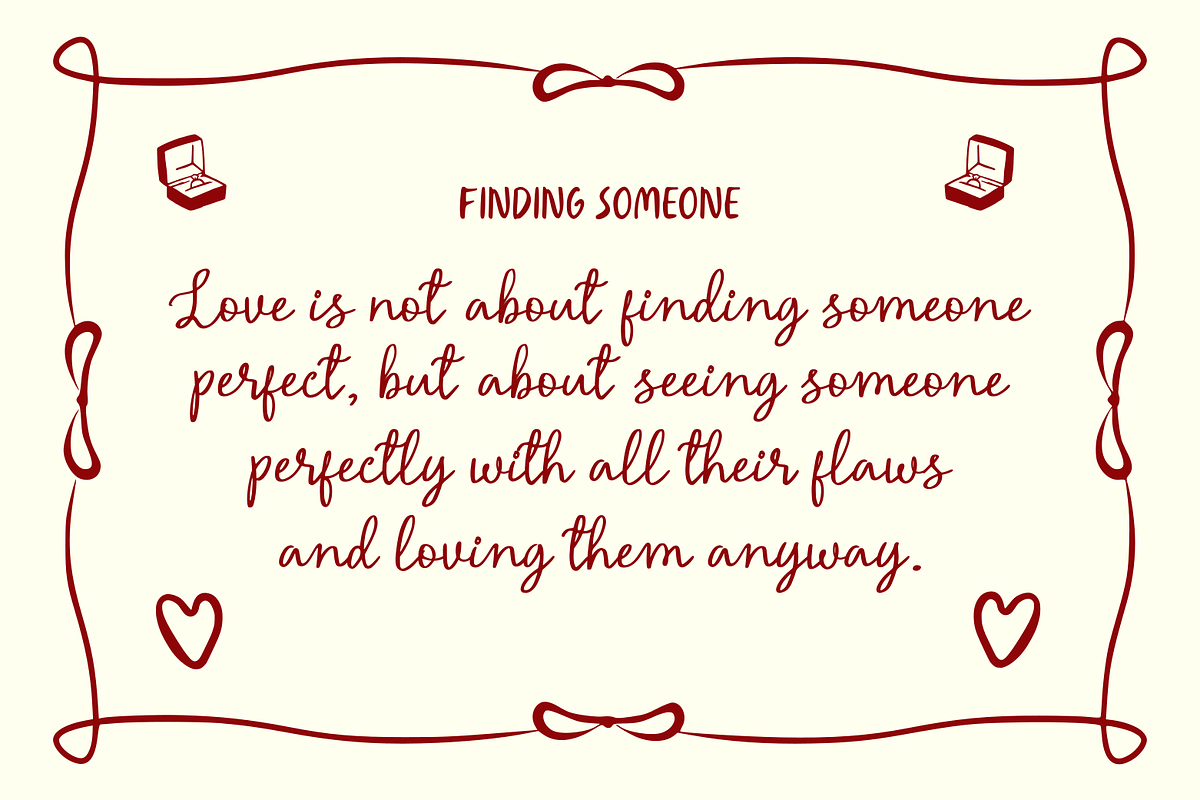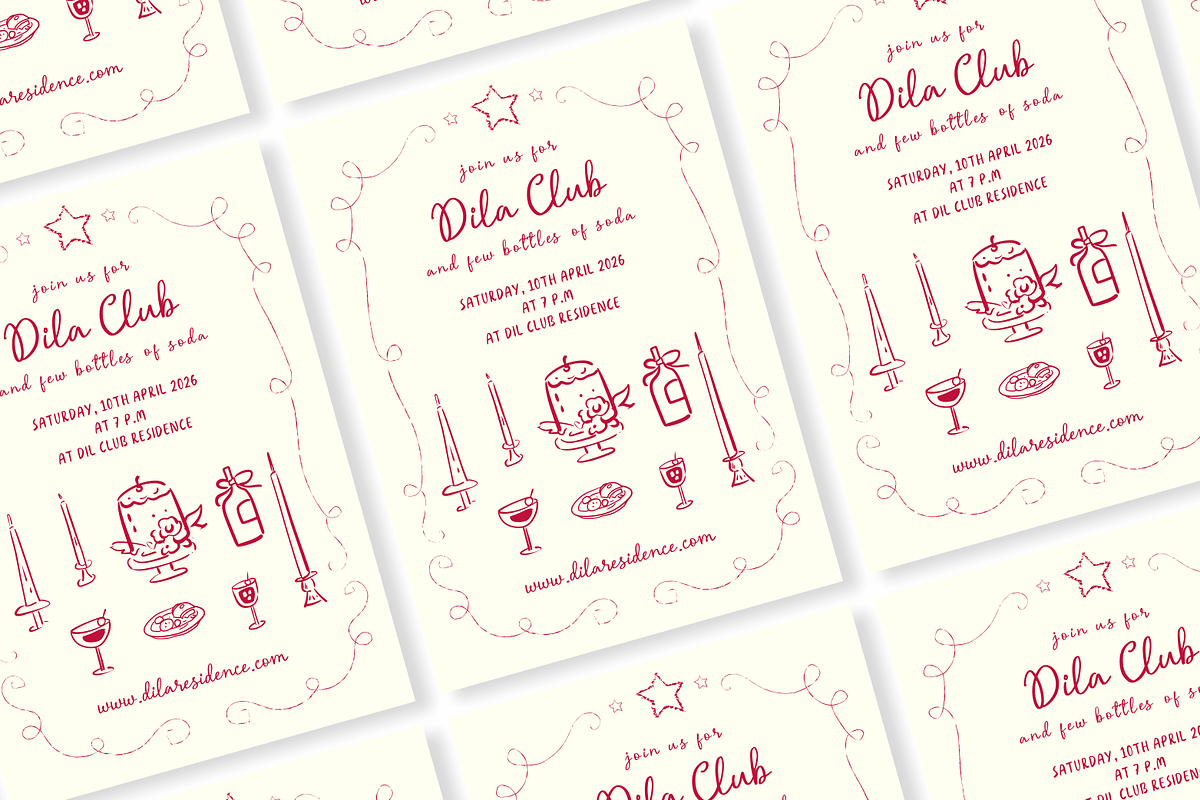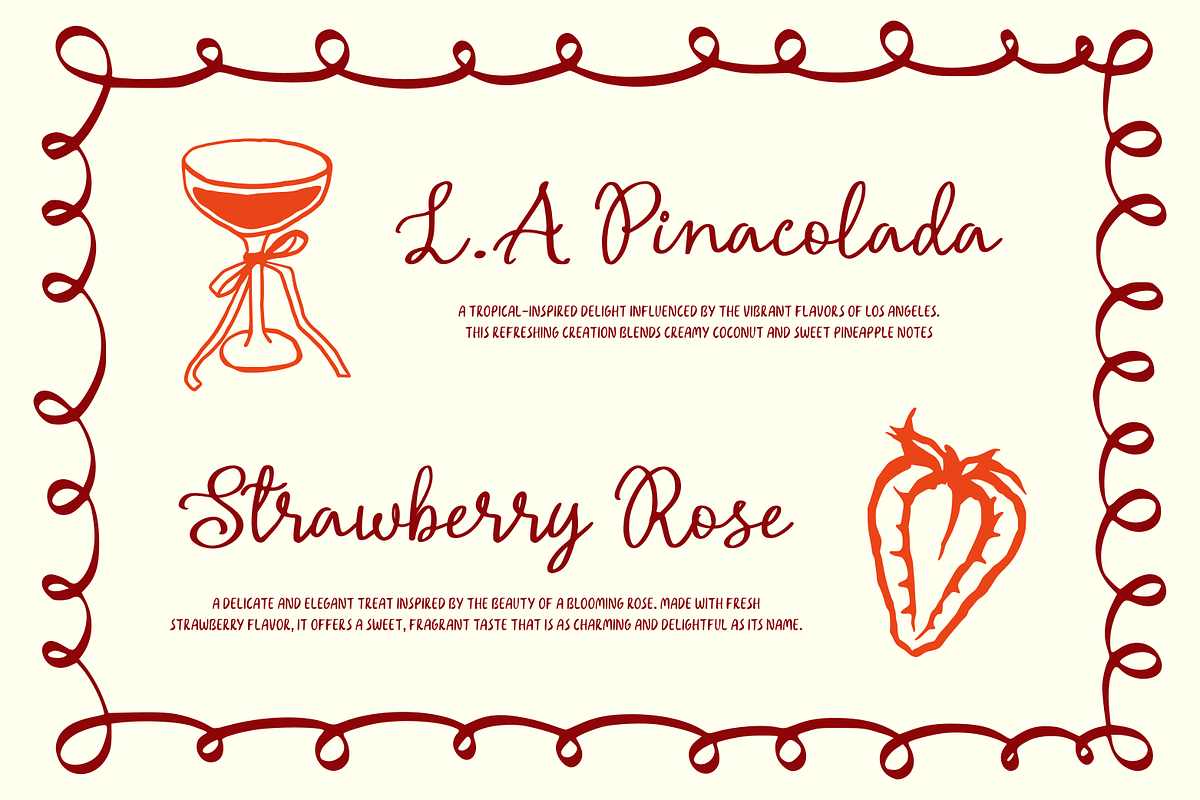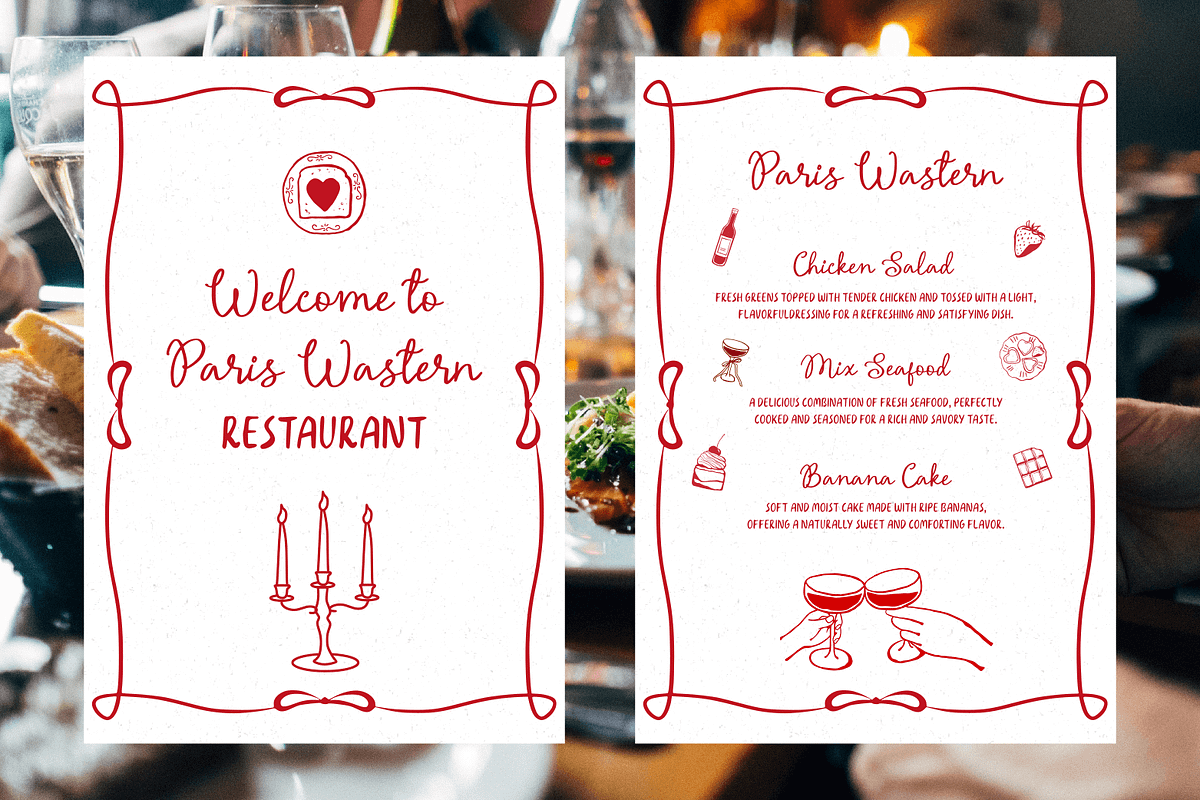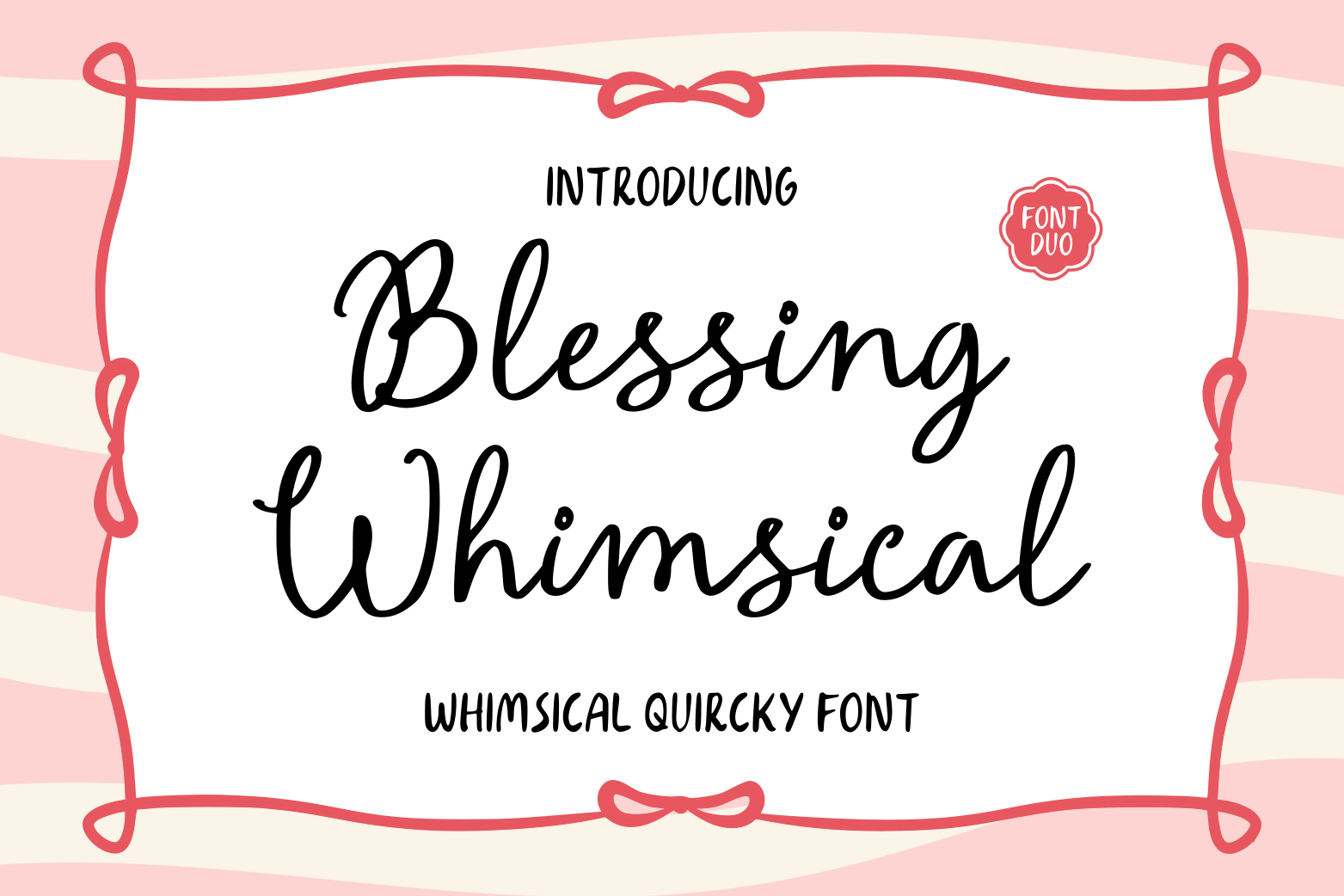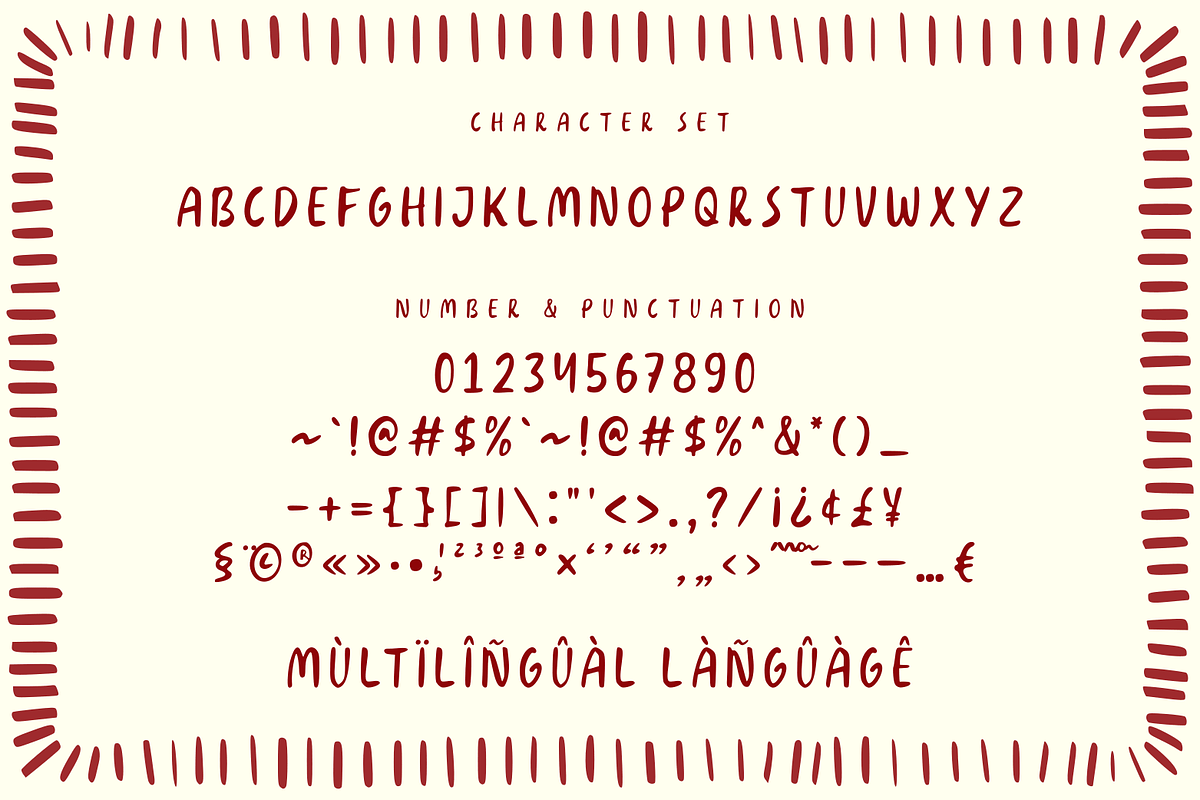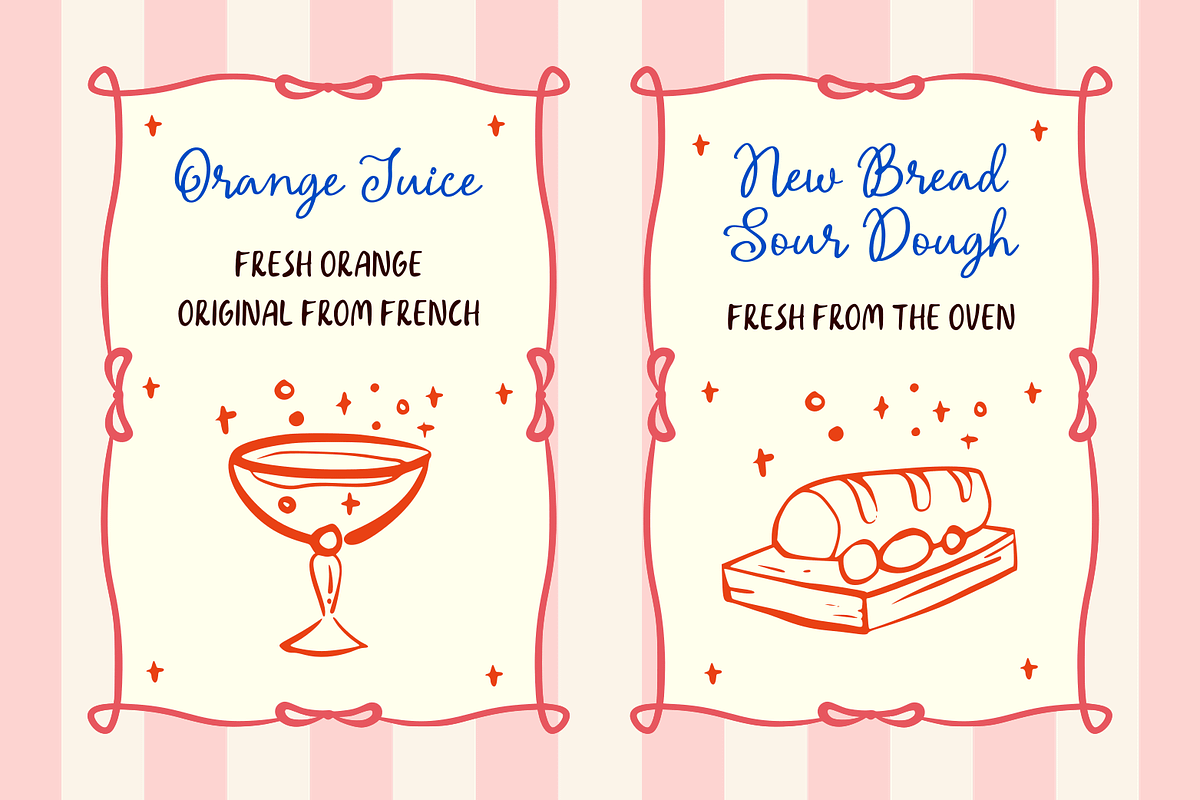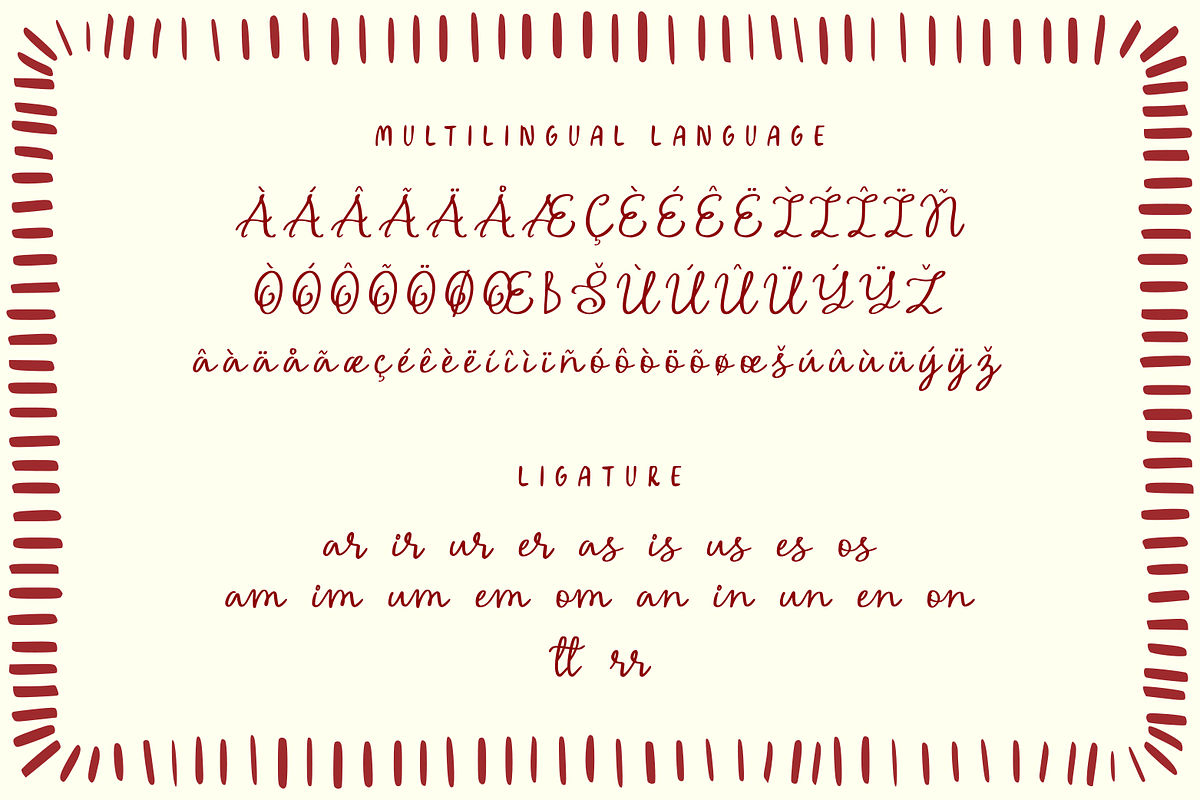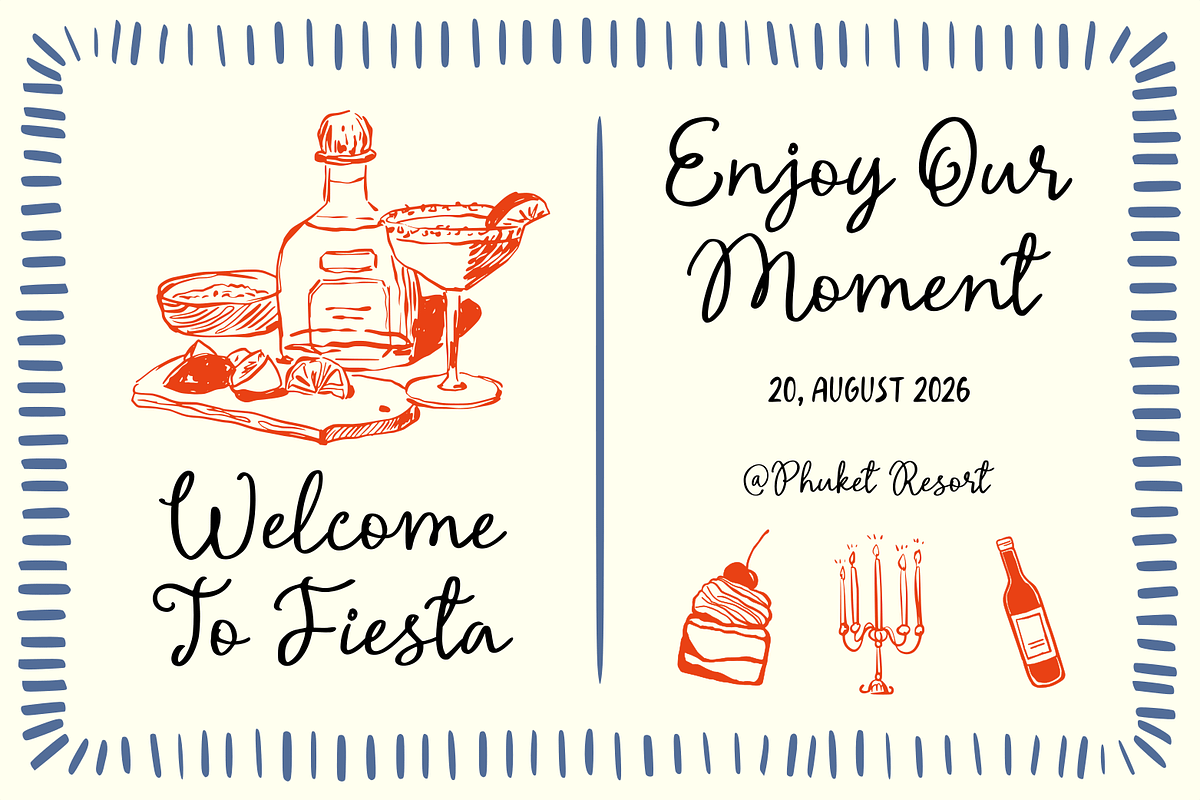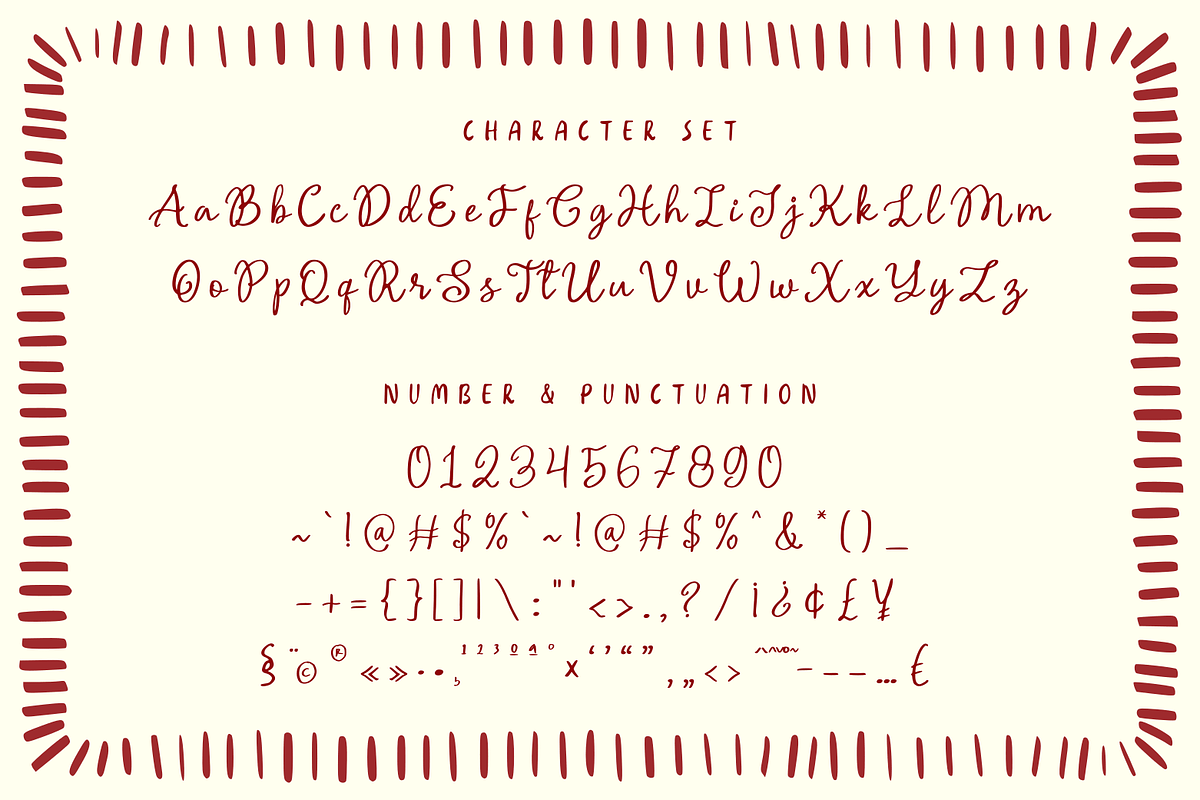
Blessing Whimsical Font Duo
Introducing Blessing Whimsical - Handwritten Font Duo
Blessing Whimsical is a delightful handwritten font duo designed to bring joy, charm, and playful personality into your designs. With its smooth script style combined with a quirky handwritten companion, this font creates a perfect balance between casual elegance and fun expression. Its natural strokes and friendly shapes make every word feel lively, warm, and approachable.
Perfect for kids designs, greeting cards, invitations, branding, crafts, social media content, and creative projects, Blessing Whimsical adds a cheerful and imaginative touch to any layout. Whether you're designing something cute, heartfelt, or fun, this font duo helps you create visuals that feel unique, expressive, and full of character.